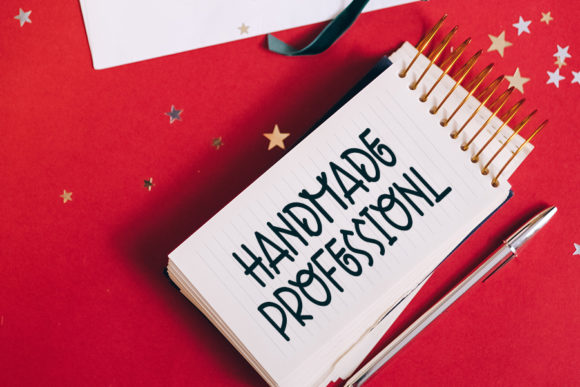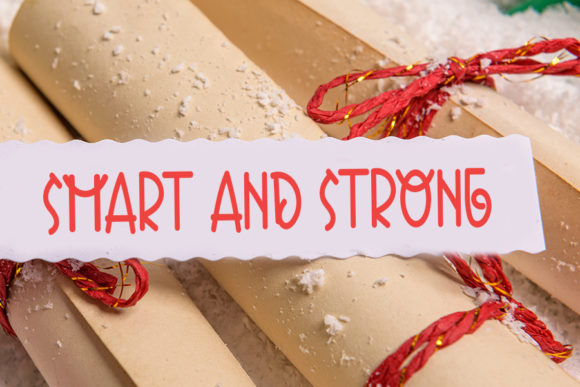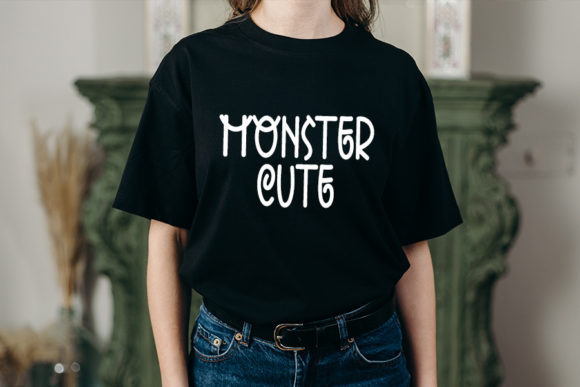
Introduction to Lovely Melody Font
Lovely Melody is a cute and whimsical display font.
Whether you are using it for cartoon-related designs, children’s games, quotes, titles, brand names, book covers, posters, or just any creation that requires a touch of beauty, this font is a great choice .